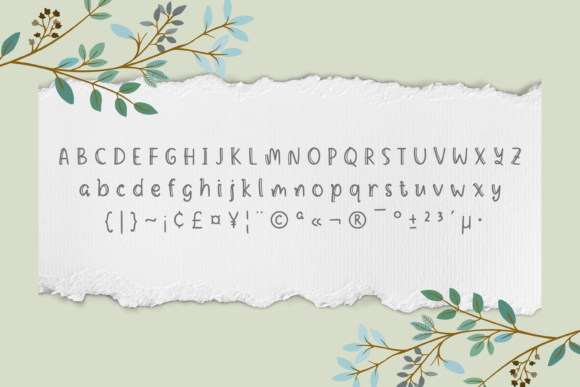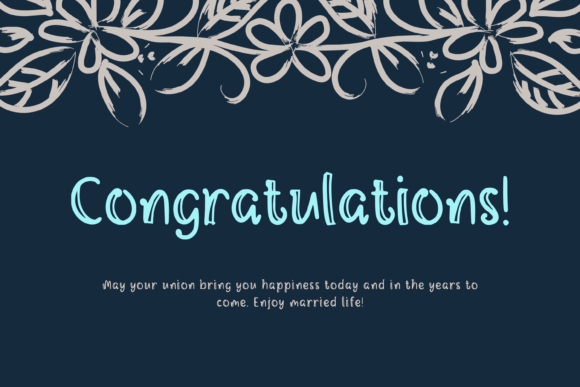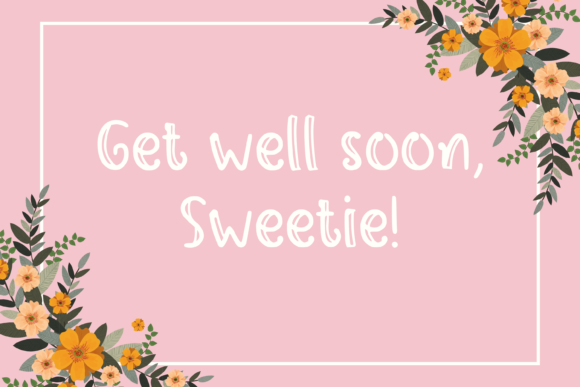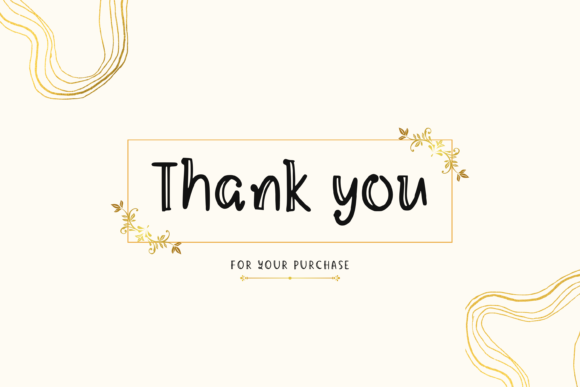
Introduction to Nylathri Font
Imagine you’re brainstorming ideas for a new project, and suddenly, a spark of creativity hits you – the perfect font pops into your mind, and your design vision comes alive. This is exactly what happens when designers stumble upon the Nylathri Font, a cool and casual display font that’s perfect for any branding project.
As a valuable design resource, Nylathri Font offers a high-quality solution for designers looking to elevate their creative projects. With its sleek and modern design, it’s ideal for logos, t-shirt printing, and other creative products that require a unique touch. Plus, its transparent background makes it easy to customize and integrate into any design.
Key Features of Nylathri Font
- Nylathri Font is a high-quality design resource ideal for creative projects requiring a unique and elegant touch.
- This font features a transparent background, allowing for seamless integration with various design elements.
- Nylathri Font is designed to be versatile, suitable for use in logos, branding materials, and other creative projects where a sophisticated look is required.
- With its unique characteristics and high-quality design, Nylathri Font is a valuable addition to any designer’s toolkit.
Honest Review: Nylathri Font
As a designer, I’ve had the pleasure of working with a wide range of fonts, but the Nylathri Font stands out for its unique blend of style and functionality. This high-quality design resource is perfect for any creative project that requires a touch of elegance and sophistication.
The Nylathri Font features a transparent background, which makes it easy to use in combination with other design elements. I particularly appreciate the wide range of weights and styles available, which allows me to customize my designs to suit my needs.
- ✨ High-quality design that is perfect for creative projects
- ✨ Wide range of weights and styles available
- ✨ Transparent background makes it easy to use in combination with other design elements
- ⚠️ Limited language support, which may be a issue for designers who need to work with non-English text
- ⚠️ Some users may find the font too ornate or busy, which can be overwhelming in certain designs